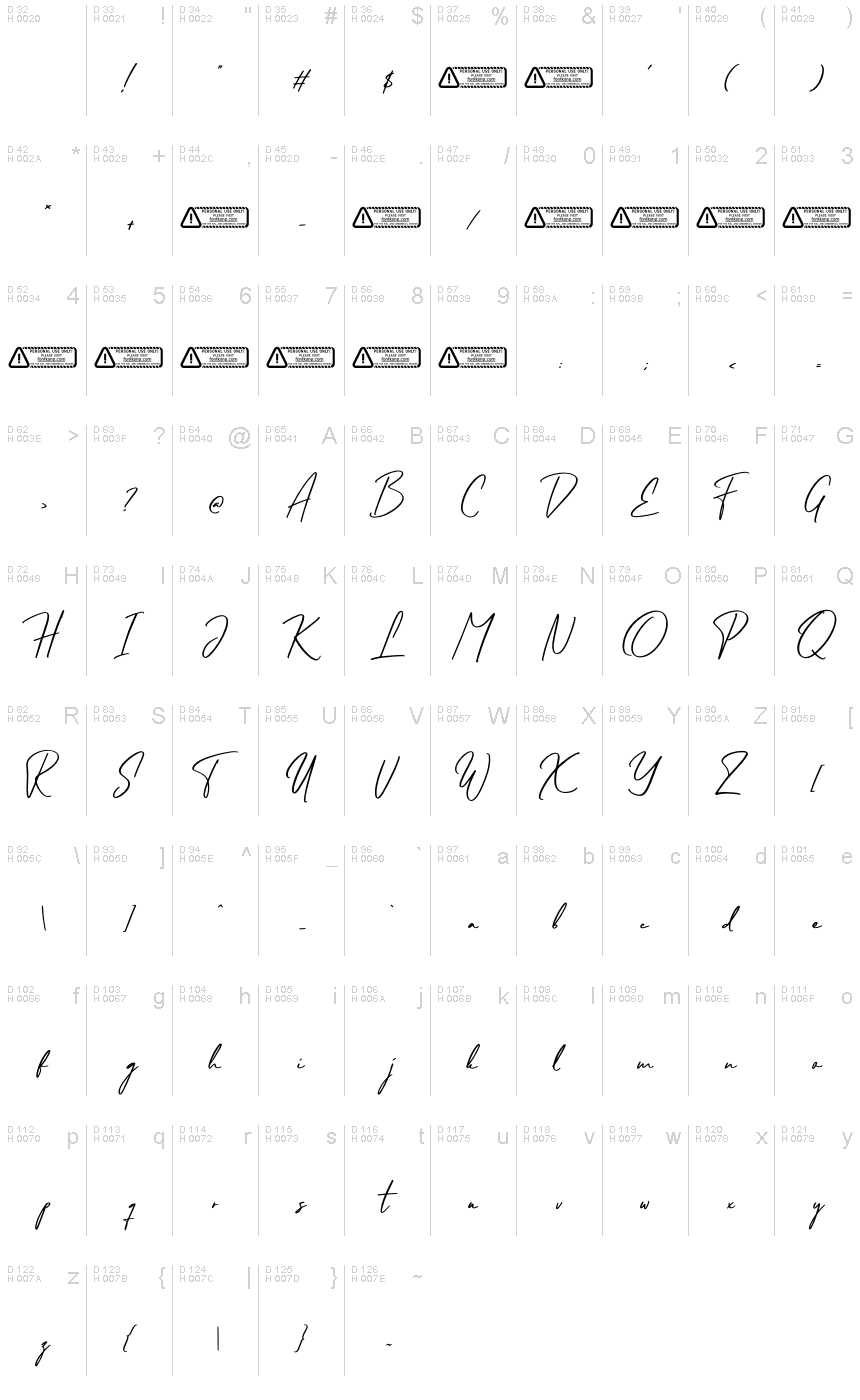
Dehally Brother font by Kong Font captures the essence of elegance with its light, handwritten style. Its condensed form exudes a modern sophistication, making it an excellent choice for design enthusiasts seeking a chic and fluid aesthetic. The graceful strokes give it a personal touch, perfect for adding warmth to branding projects, invitations, or digital graphics.
This free font can be easily downloaded, allowing designers to explore its versatility across various applications. Dehally Brother font shines in projects that demand both flair and readability. Whether you're designing a logo or crafting engaging social media content, its unique style brings an inviting charm that stands out in any creative context.